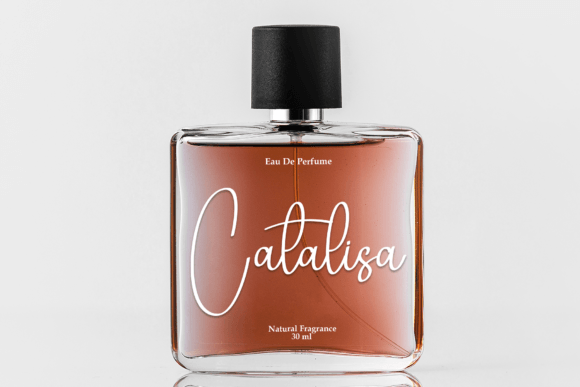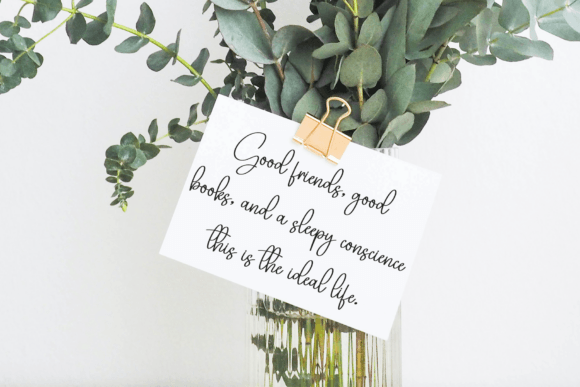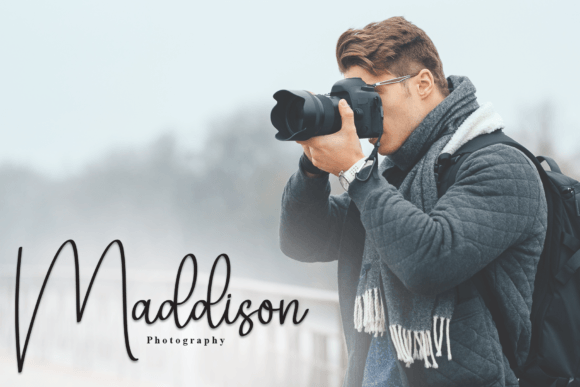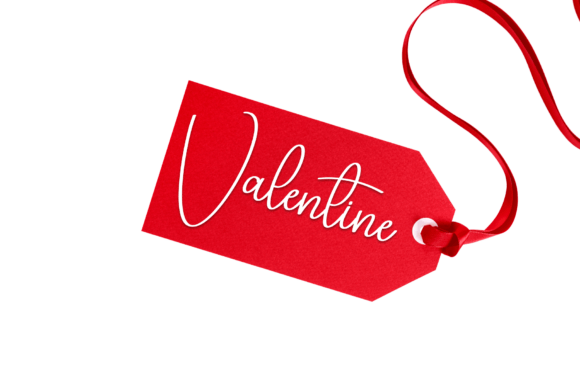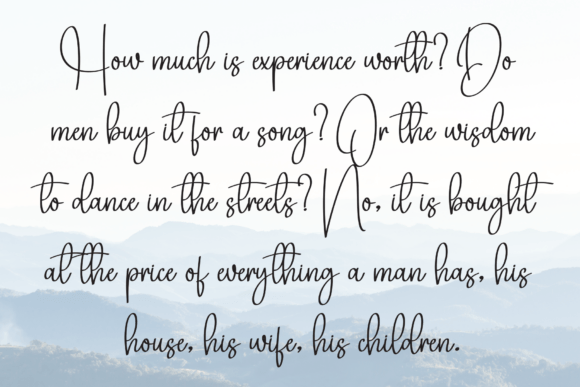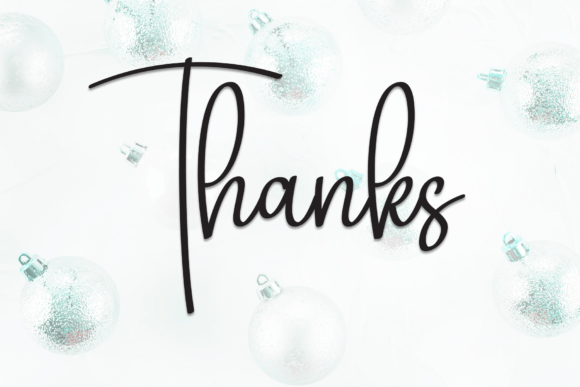
Introduction to Christmas Bubbles Font
As I sat at my desk, surrounded by scraps of paper, glue, and glitter, I stumbled upon the perfect font to bring my creative project to life – the Christmas Bubbles Font. Its delicate and elegant handwritten style was exactly what I needed to add a touch of magic to my holiday design.
As a designer, I know how valuable it is to have a high-quality font that can elevate your work and make it stand out. And that’s exactly what the Christmas Bubbles Font does. With its well-balanced letters and transparent background, it’s the perfect design resource for any creative project, from greeting cards to social media graphics.
Whether you’re looking for a free download or a high-quality font to add some sparkle to your designs, the Christmas Bubbles Font is sure to impress. In this article, we’ll dive deeper into what makes this font so special and how you can use it to create spectacular designs that will leave your audience in awe.
Key Features of Christmas Bubbles Font
- Unique and festive design for creative projects, perfect for adding a touch of Christmas magic to your designs.
- High-quality, scalable font with transparent background, ideal for use on various design resources, including digital and print media.
- Resolution-independent, allowing for crisp and clear display on various screen sizes and resolutions.
- Designed to be versatile and easy to use, making it perfect for designers who want to add a creative touch to their projects without the hassle of complicated font manipulation.
- Comes with a comprehensive character set, including uppercase and lowercase letters, numbers, and special characters, making it suitable for a wide range of design applications.
Honest Review: Christmas Bubbles Font
I recently had the chance to work with the Christmas Bubbles Font, a popular design resource for creative projects. I was excited to see how it would perform in my designs.
- High-quality design: The font is well-designed and visually appealing, making it perfect for festive projects.
- Transparent background: This feature is super useful for designers who want to easily layer their fonts over different backgrounds.
- Limited versatility: While the font is perfect for Christmas-themed projects, it may not be as versatile for other design projects.
- No customizability: I found that the font’s design is fixed, and there are no options to customize it to fit specific design needs.
Overall, I think the Christmas Bubbles Font is a great resource for designers who need a high-quality, festive font. While it may have some limitations, its free download and transparent background features make it a valuable addition to any design library.
The Christmas Bubbles Font is a high-quality design resource ideal for creative projects. It features a transparent background, making it easy to layer with other elements in your design.
To get the most out of the Christmas Bubbles Font, experiment with different font sizes, colors, and combinations with other design elements. You can also use the font in combination with images and graphics to create a visually appealing design.
The Christmas Bubbles Font is perfect for creating festive designs, such as holiday cards, invitations, and social media graphics. It’s also ideal for use in branding and marketing materials, such as logos and brochures.